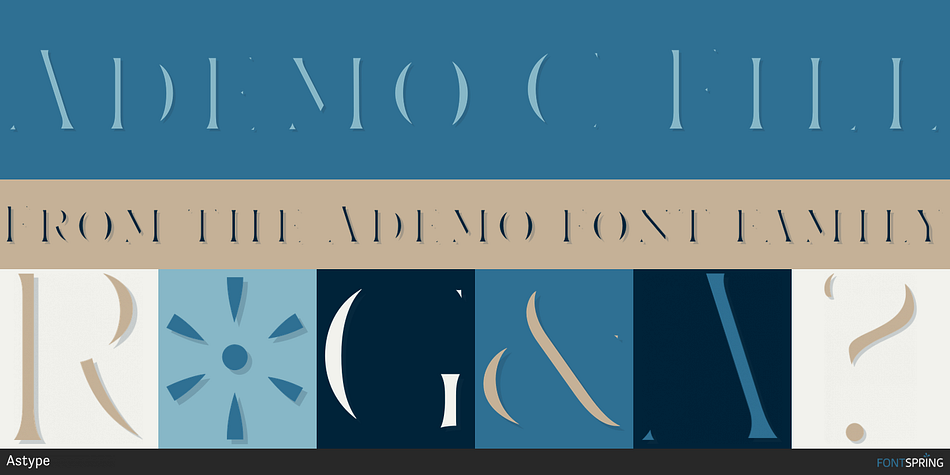
Ademo C Fill
Ademo is a display serif font family. This typeface has fourteen styles and was published by Astype.
Ademo is a classic, shaded and perspective looking display font. The design is based on two typefaces designed by Carl Albert Fahrenwaldt and published between 1931– 1932 by the German Schriftguss AG type foundry.
Ademos special Fill fonts can be used for building multi colored text or for special finishing needs like blind imaging, embossing, stamping, partial UV coating and laser cutting.